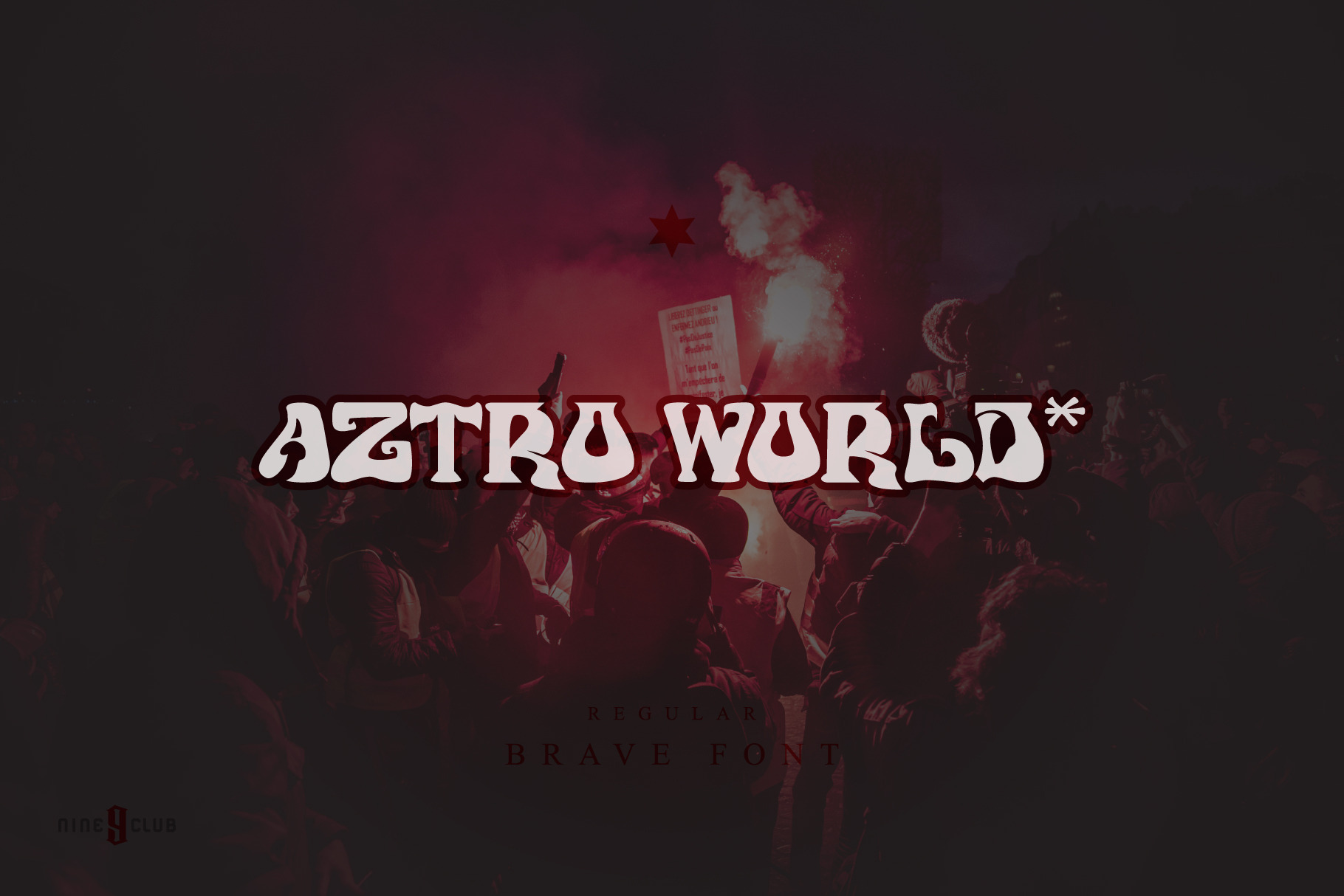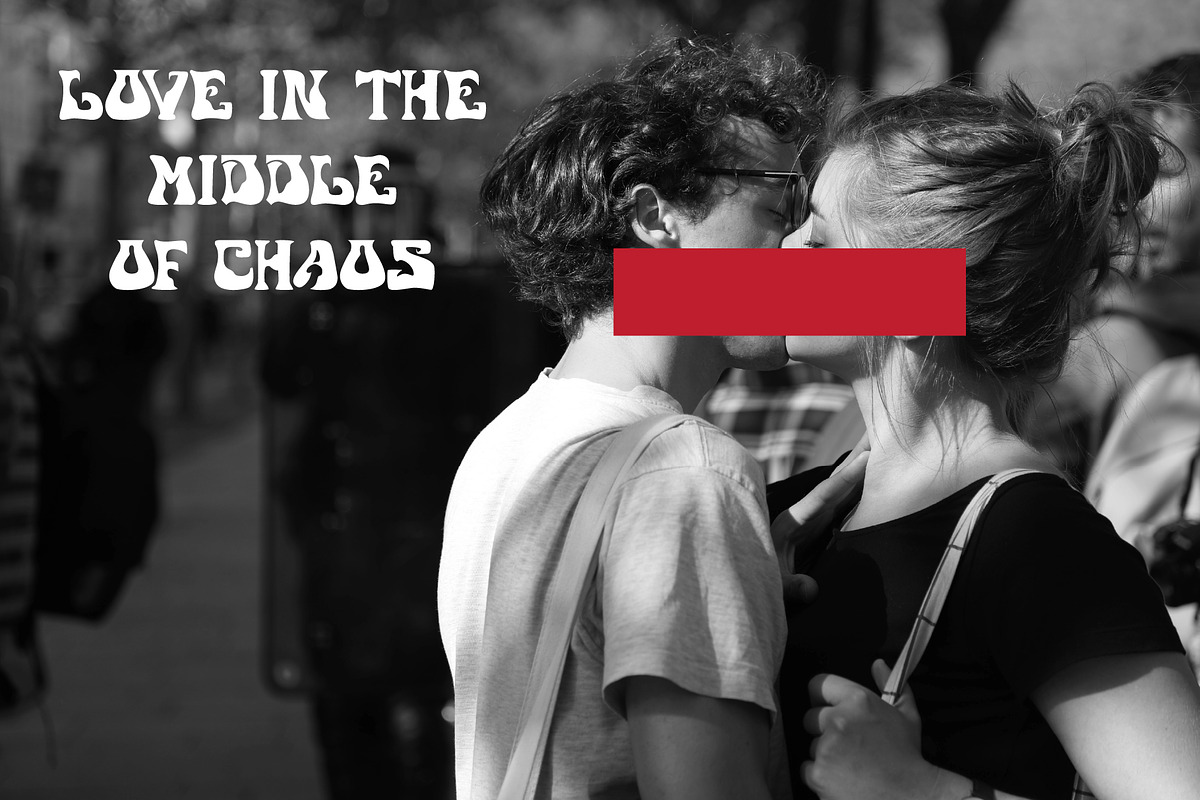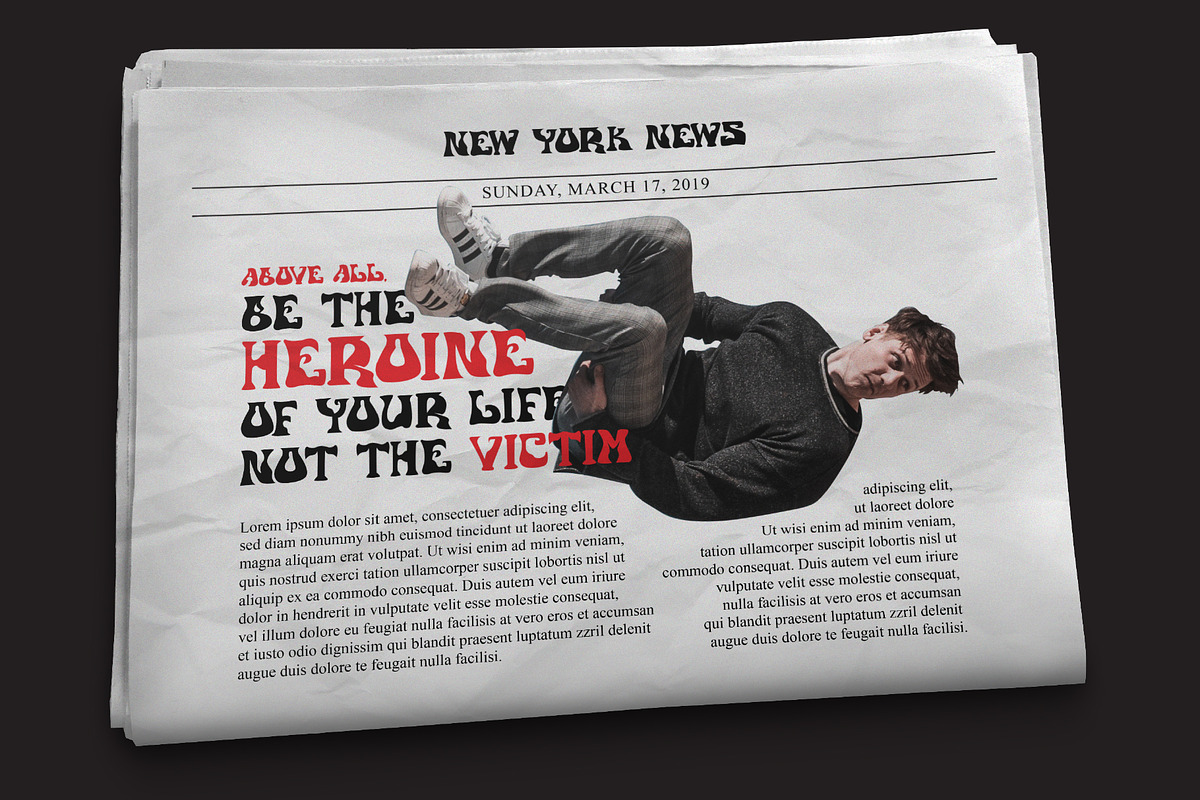
Aztro World | Fancy Font
Aztro World is a bold font. Show your character. In the midst of all the chaos that goes on this font illustrates what is happening. Become a font that represents your inner souls in this world. It is suitable for posters, brands, logos, and anything that is cool. With a slightly old-school style and a mix of millennial styles, hopefully you can make something amazing with this font.